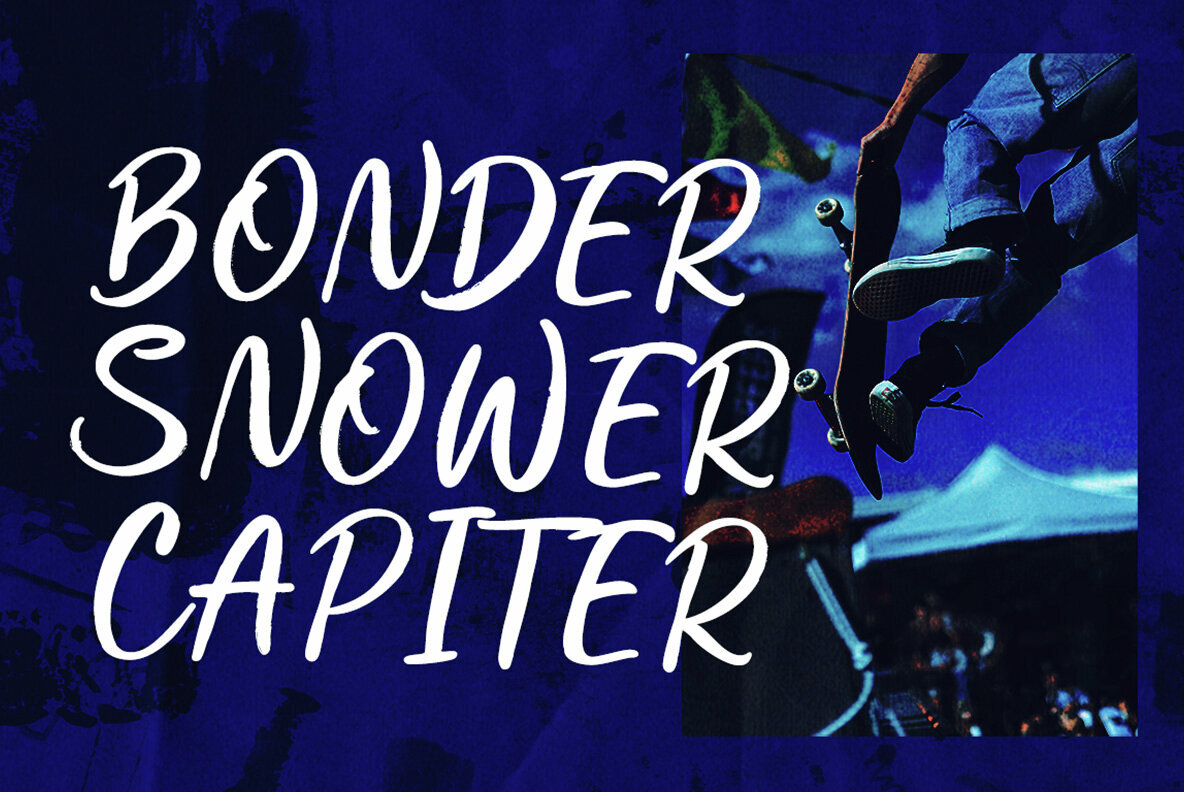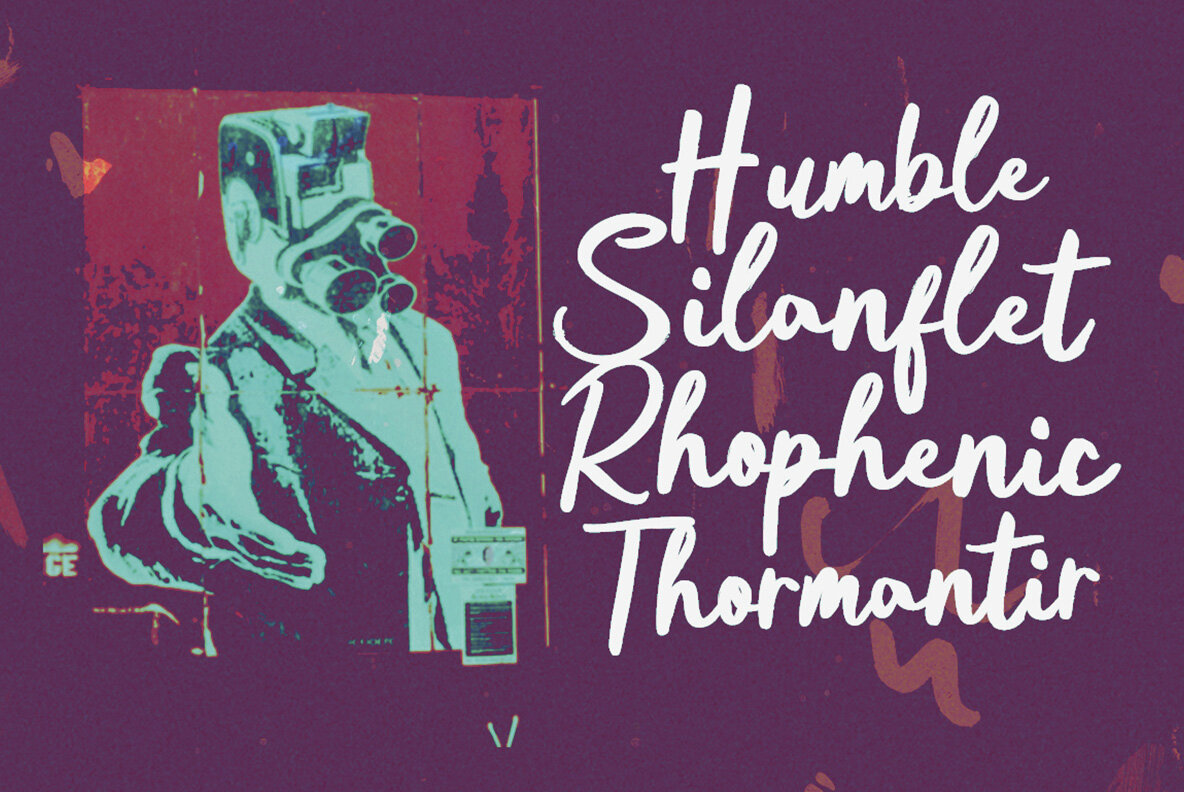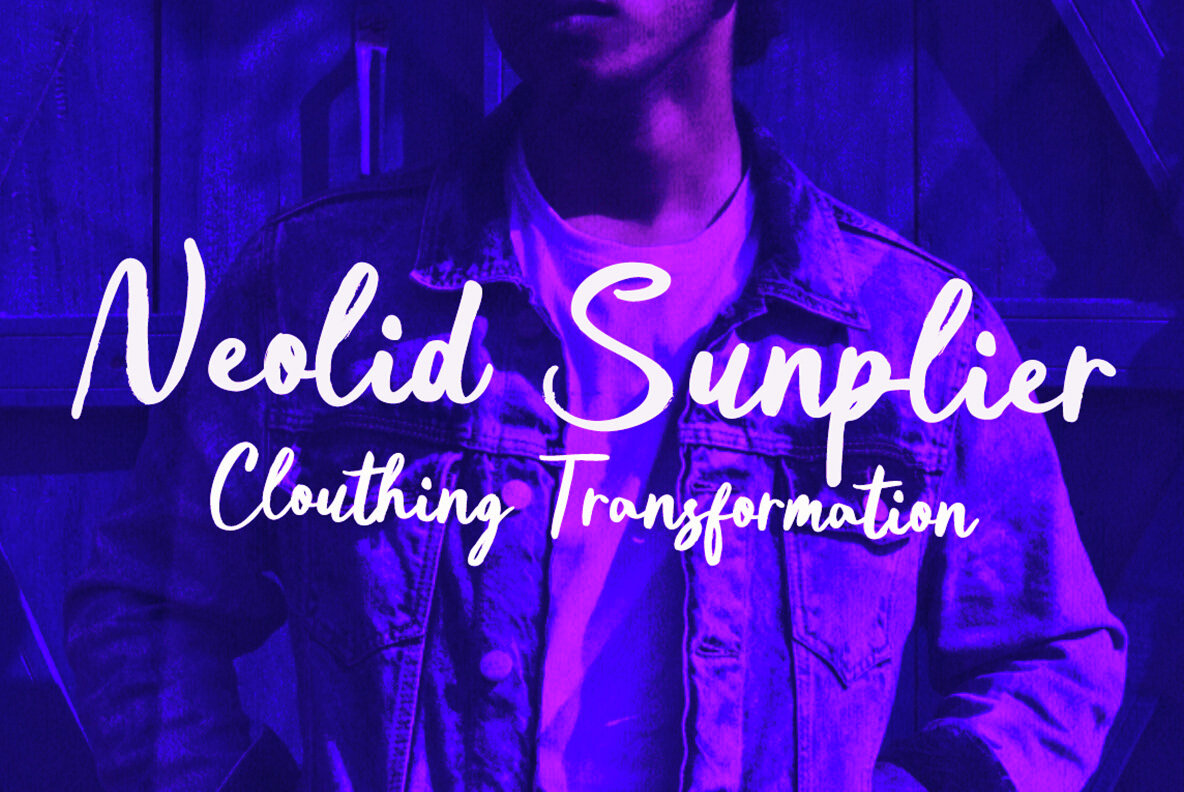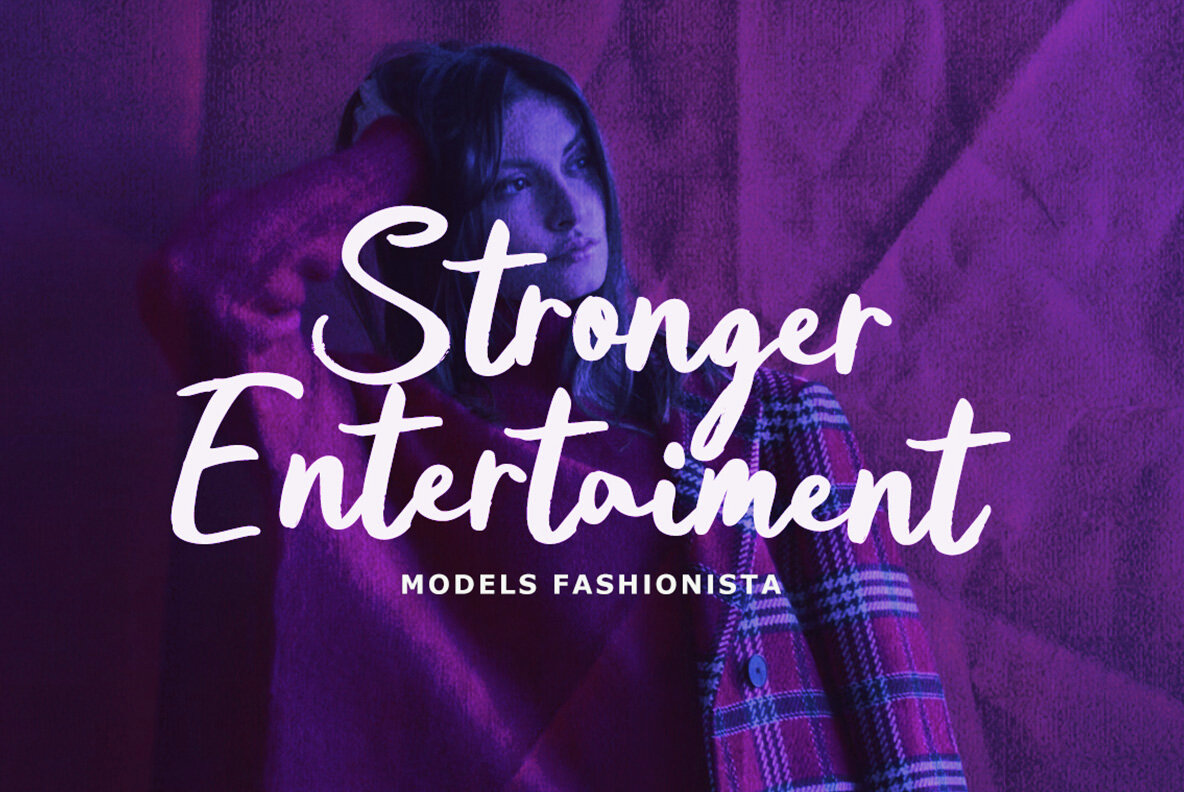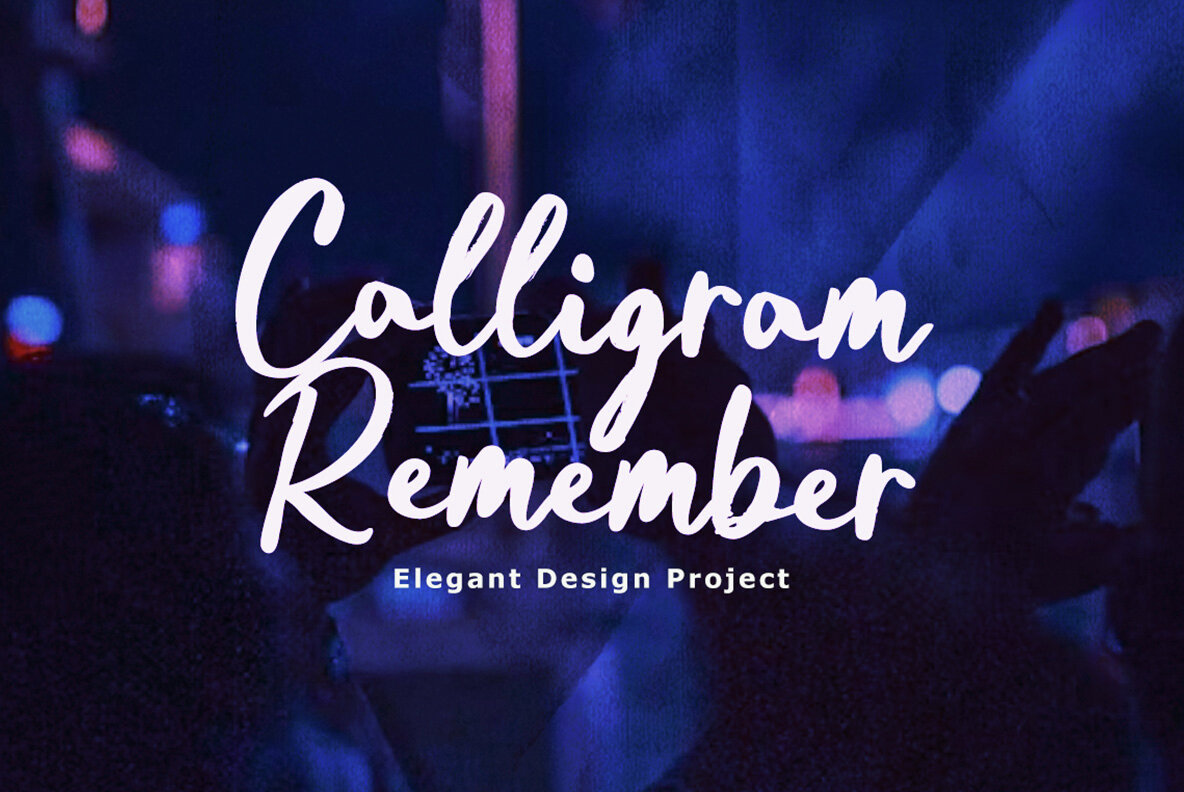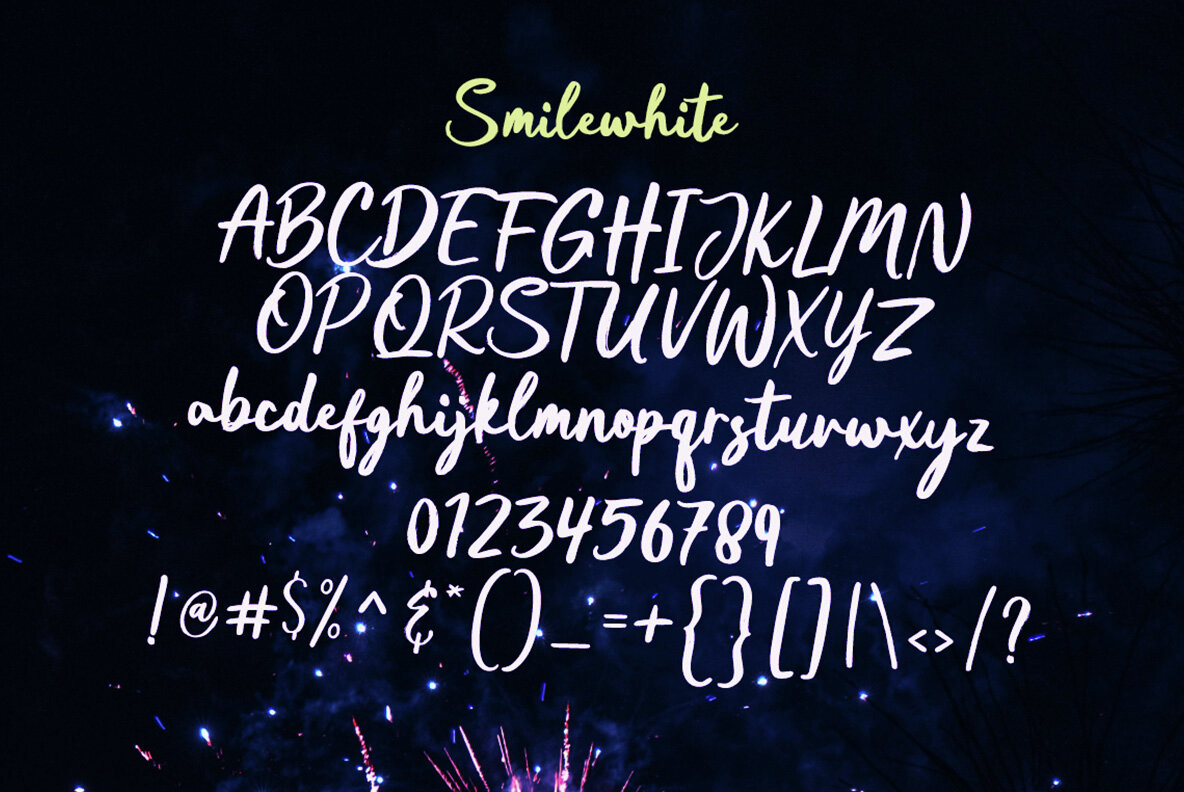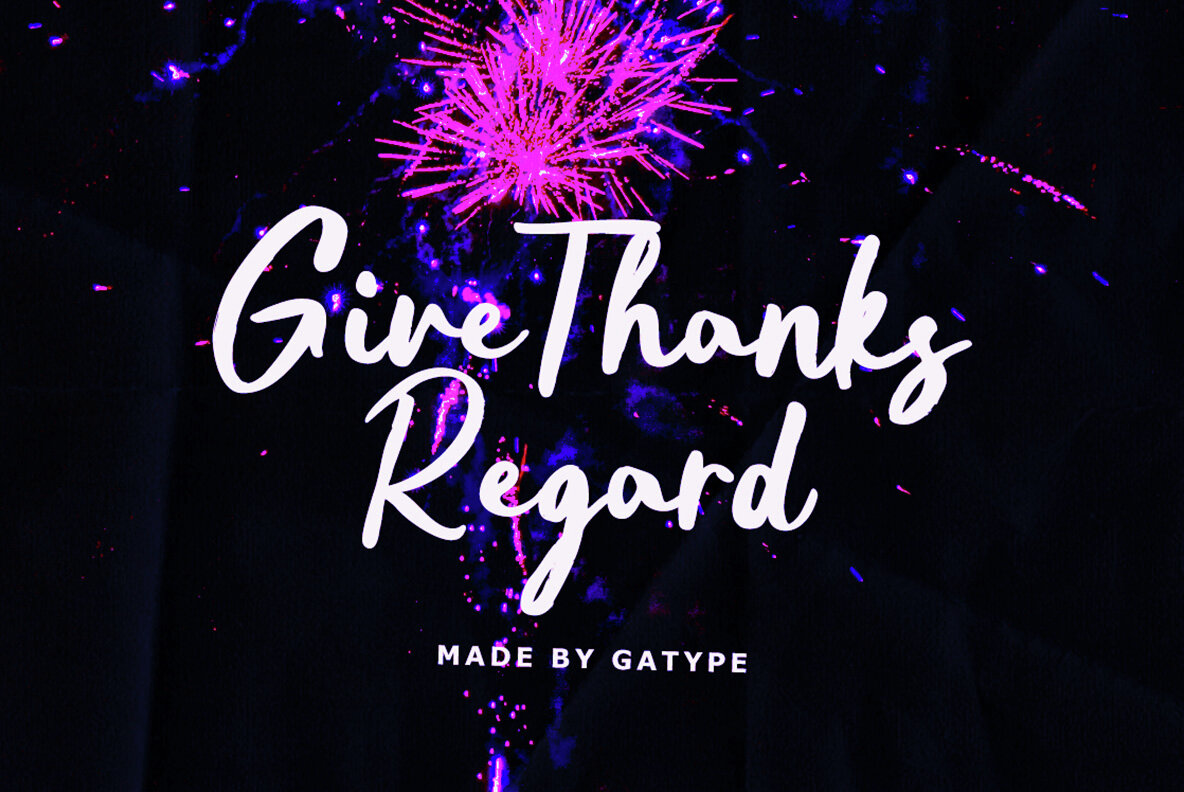
Smile White Font
Smile White is a dynamic brush script font that exudes a creative atmosphere with its perfectly crafted shapes. Inspired by contemporary display serifs, this font is thick, balanced, and varied, making it an ideal choice for projects that demand luxury and beauty. This script is versatile enough for diverse applications, including:Smile White: Creative Brush Script for Elegant Design